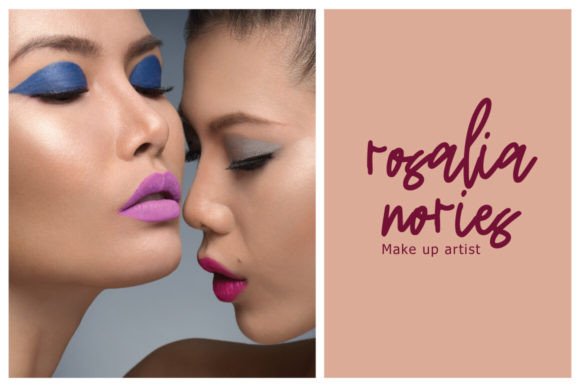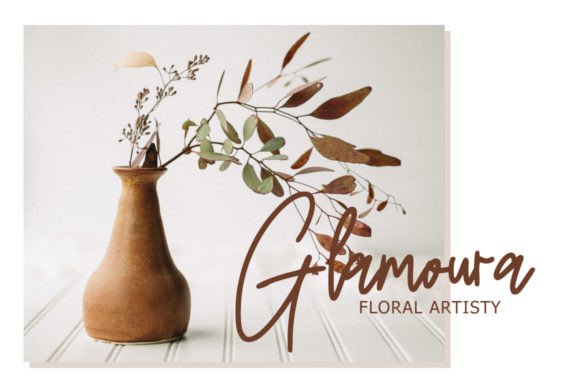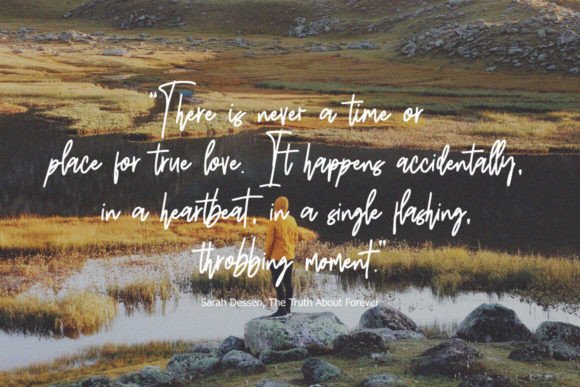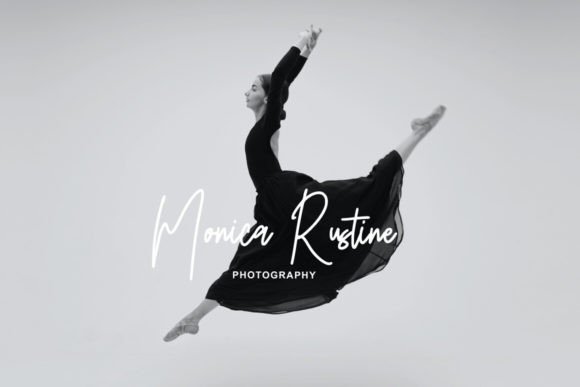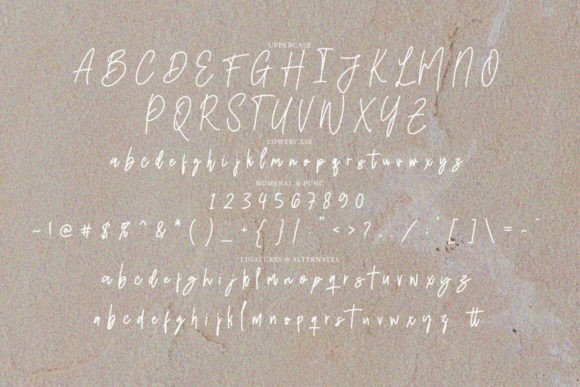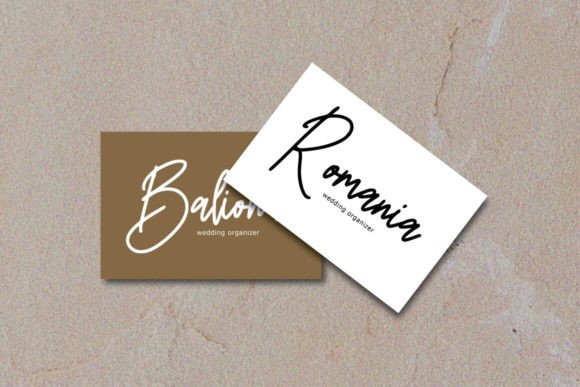
Introduction to Marieka Font
Have you ever found yourself stuck in a creative rut, desperately searching for that perfect font to elevate your design project? I know I have. It’s a moment that can make or break the entire vibe of your work. But what if I told you that I’ve discovered a game-changing font that will take your designs to the next level?
Enter the enchanting Marieka Font, a stunning handwritten font that’s as beautiful as it is versatile. With its unique combination of decorative characters and a dancing baseline, this font is perfect for adding a touch of elegance to your invitation designs, greeting cards, branding materials, business cards, quotes, posters, and more.
What sets Marieka Font apart from other design resources is its high quality and ease of use. As a PUA encoded font, you’ll have access to all the amazing glyphs and ligatures, making it a valuable asset for any designer looking to take their creative projects to the next level.
Key Features of Marieka Font
- High-quality, professional font suitable for various creative projects.
- Resolution-independent, allowing for crisp and clear display on various devices.
- Translucent background option for added flexibility in design applications.
- Designed with a unique, elegant style, making it perfect for headings and titles.
- Supports a wide range of languages, including Latin, making it a versatile choice for global projects.
Honest Review: Marieka Font
As a designer, I’m always on the lookout for high-quality design resources to elevate my creative projects. Recently, I came across the Marieka Font, and I’m excited to share my honest review.
What works well about the Marieka Font is its unique and elegant style. The font is perfect for projects that require a touch of sophistication and refinement. I particularly love the way the font looks on a transparent background, allowing the design to take center stage. ✨ The font is also highly legible, making it an excellent choice for body text.
Some of the benefits of the Marieka Font include:
- Unique and elegant style that’s sure to impress
- Legible and easy to read, even on a transparent background
One limitation of the Marieka Font is that it may not be suitable for all design projects. The font’s elegant style may not be the best fit for bold or edgy designs. ⚠️ Additionally, the font may require some adjustments to work well on certain backgrounds.
Overall, I’m impressed with the Marieka Font and would definitely recommend it to designers looking for a high-quality, elegant font for their creative projects.
Tips for Getting the Most Out of Marieka Font
To get the most out of Marieka Font, experiment with different font sizes, colors, and styles. You can also use the font in combination with other design elements, such as images and graphics, to create a unique and eye-catching design.
Marieka Font is a great resource for any creative project, including social media graphics, presentations, and documents. Its high quality and transparent background options make it perfect for use in design software like Canva, Adobe Photoshop/Illustrator, and Microsoft PowerPoint/Word.
Does the Marieka Font have a transparent background?
Yes, the Marieka Font has a transparent background, making it an ideal choice for creative projects that require a clean and minimalist aesthetic. The font’s transparent background allows you to easily overlay it on images or other design elements, giving you more flexibility in your design process.